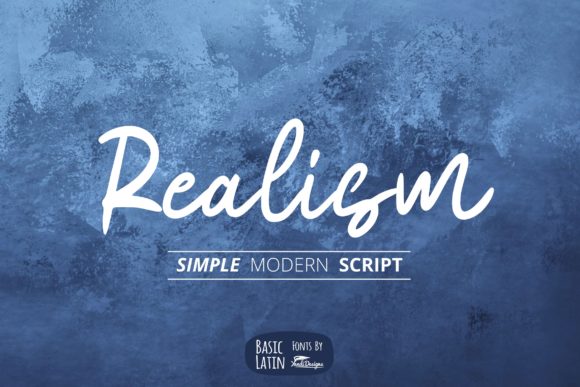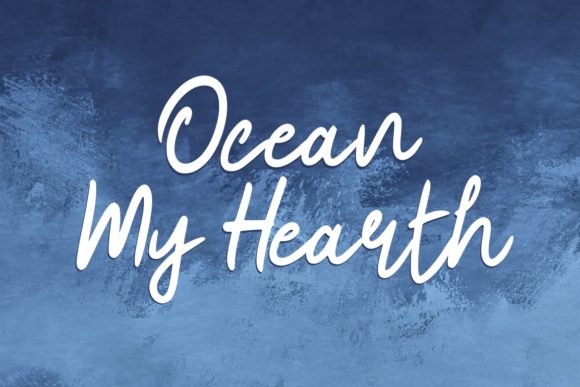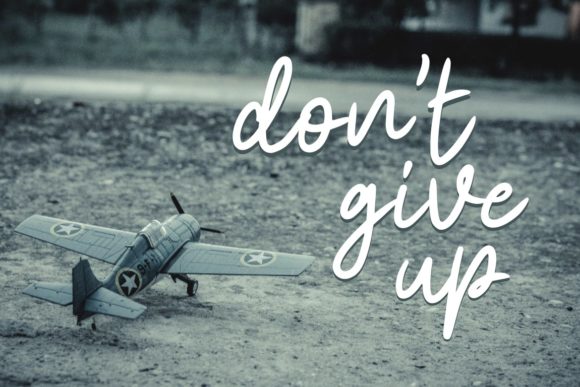
Realism Font
About Realism Font
Get back with your feet on the ground with some Realism. This quirky handwritten font is the perfect choice for a variety of projects, such as logos, posters, t-shirt & mug designs and more.